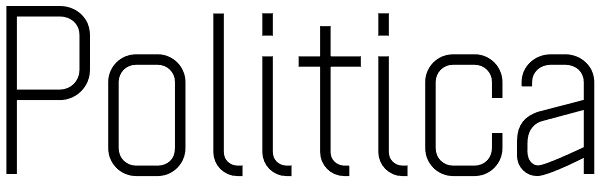
Politica
Describe the 21st century politician. Left or right? Fat or thin? War or peace? Straight or gay? Hard or soft? Male or female? Pro or con? Young or old? East or west? Now look at the Politica super-family and see which font they may be. The overused...